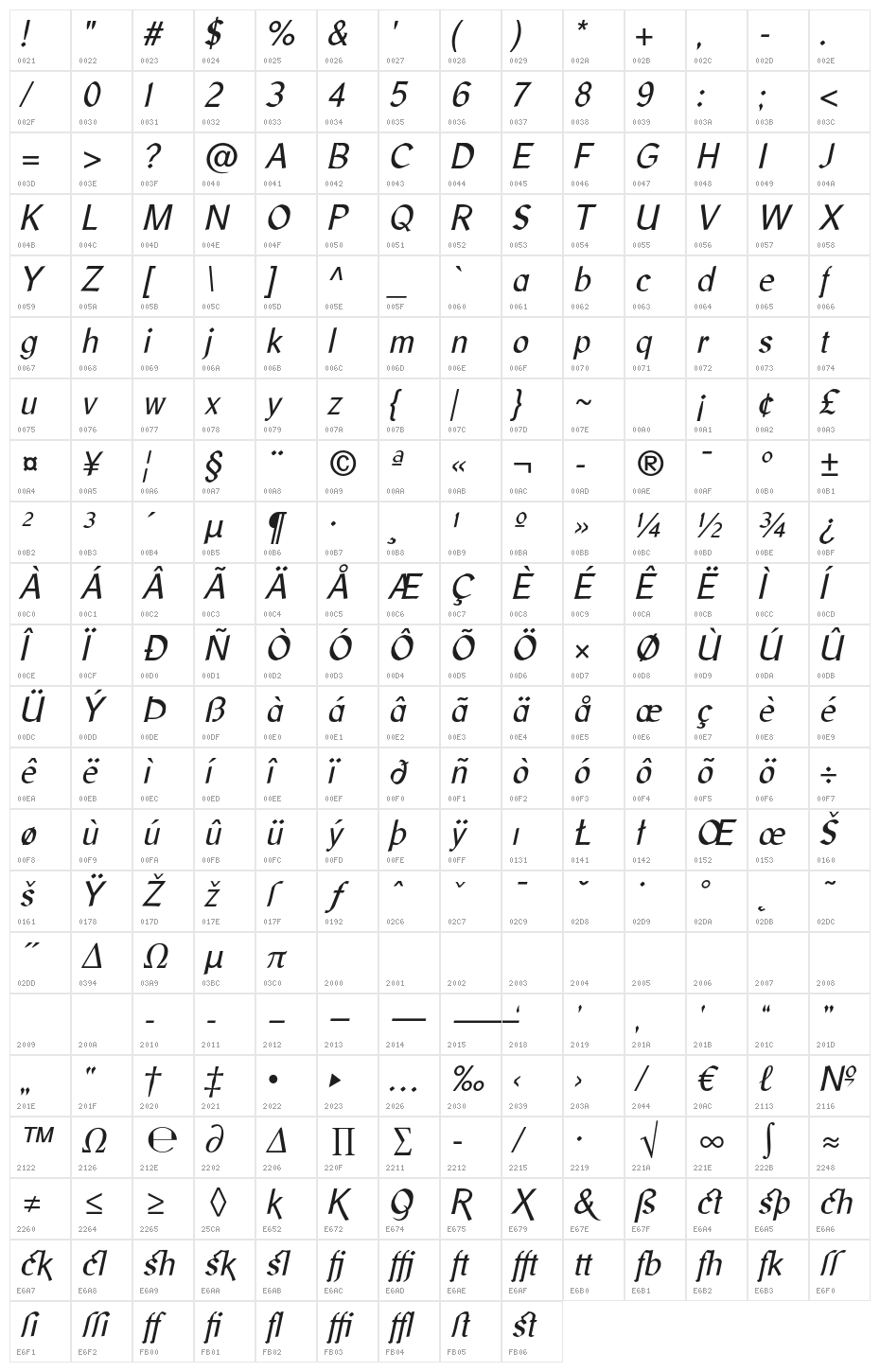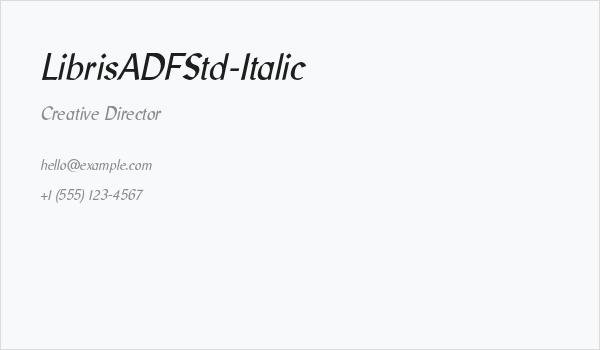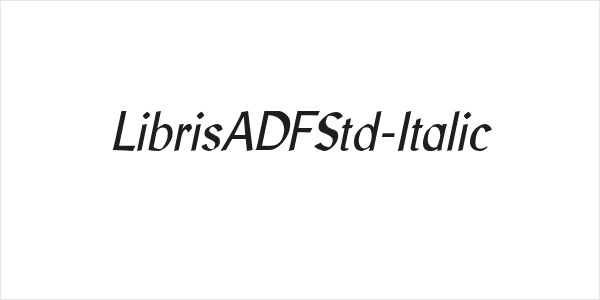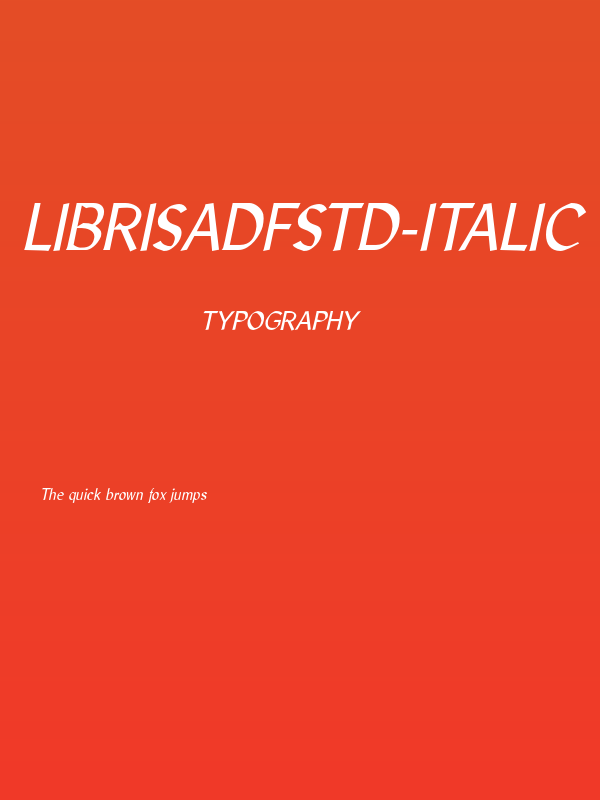
LibrisADFStd-Italic Font
LibrisADFStd-Italic Description
This font features an elegant italic style with smooth, flowing lines that give it a sophisticated and refined appearance. The characters are slightly slanted, enhancing the dynamic and fluid nature of the typeface. The strokes are consistent and well-balanced, providing a harmonious look across both uppercase and lowercase letters. The numerals and special characters maintain the same stylistic approach, ensuring uniformity throughout. This font is versatile, suitable for both formal and creative applications, and its italic nature adds a touch of elegance and movement.
| Proposed Projects | Ideal for projects such as wedding invitations, elegant branding, editorial design, and artistic posters. |